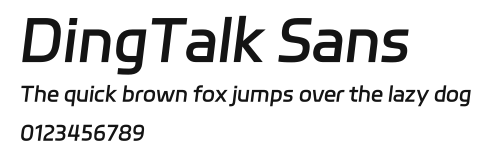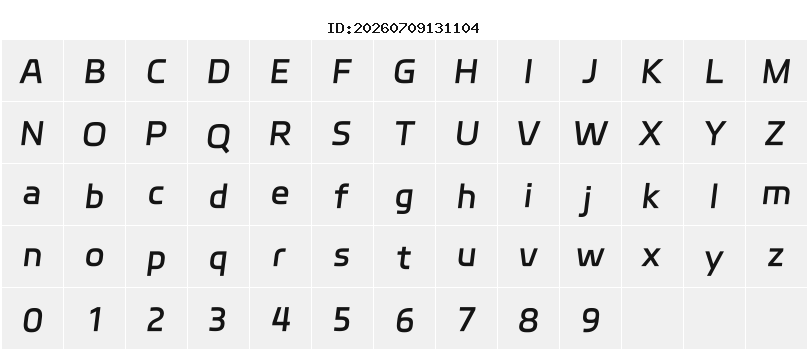
About DingTalk Sans.ttf
DingTalk Sans.ttf is a modern, elegant sans-serif font designed for ultimate readability and visual harmony. Perfect for branding, headlines, web design, and print materials.